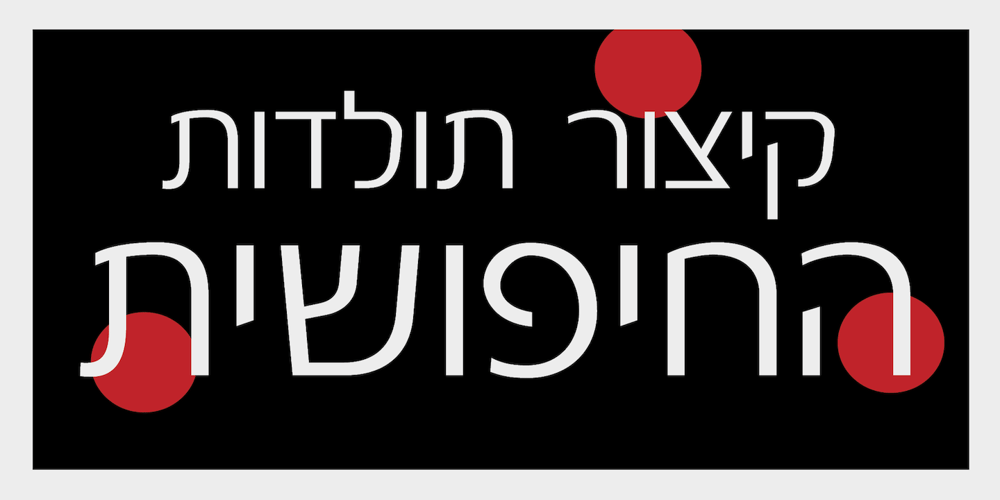
Protocol Chashay MF
Protocol Chashay MF font
Protocol Chashay MF Font Family was designed by Zvika Rosenberg and published by Masterfont. Protocol Chashay MF contains 8 styles and family package options. Super font family with 8 weights, serves as a working horse, from small type to large street posters, high legibility in any size.